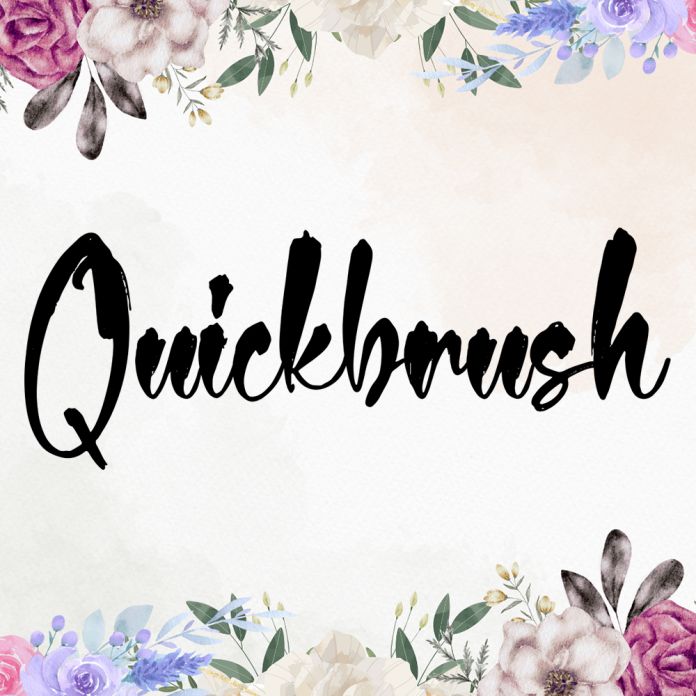
Quickbrush is a friendly and casual handwritten script font. Whatever the topic, this font will be a wonderful asset to your font library, as it has the potential to refine any creation. This font is PUA encoded, which means you can access all glyphs and swashes with ease!